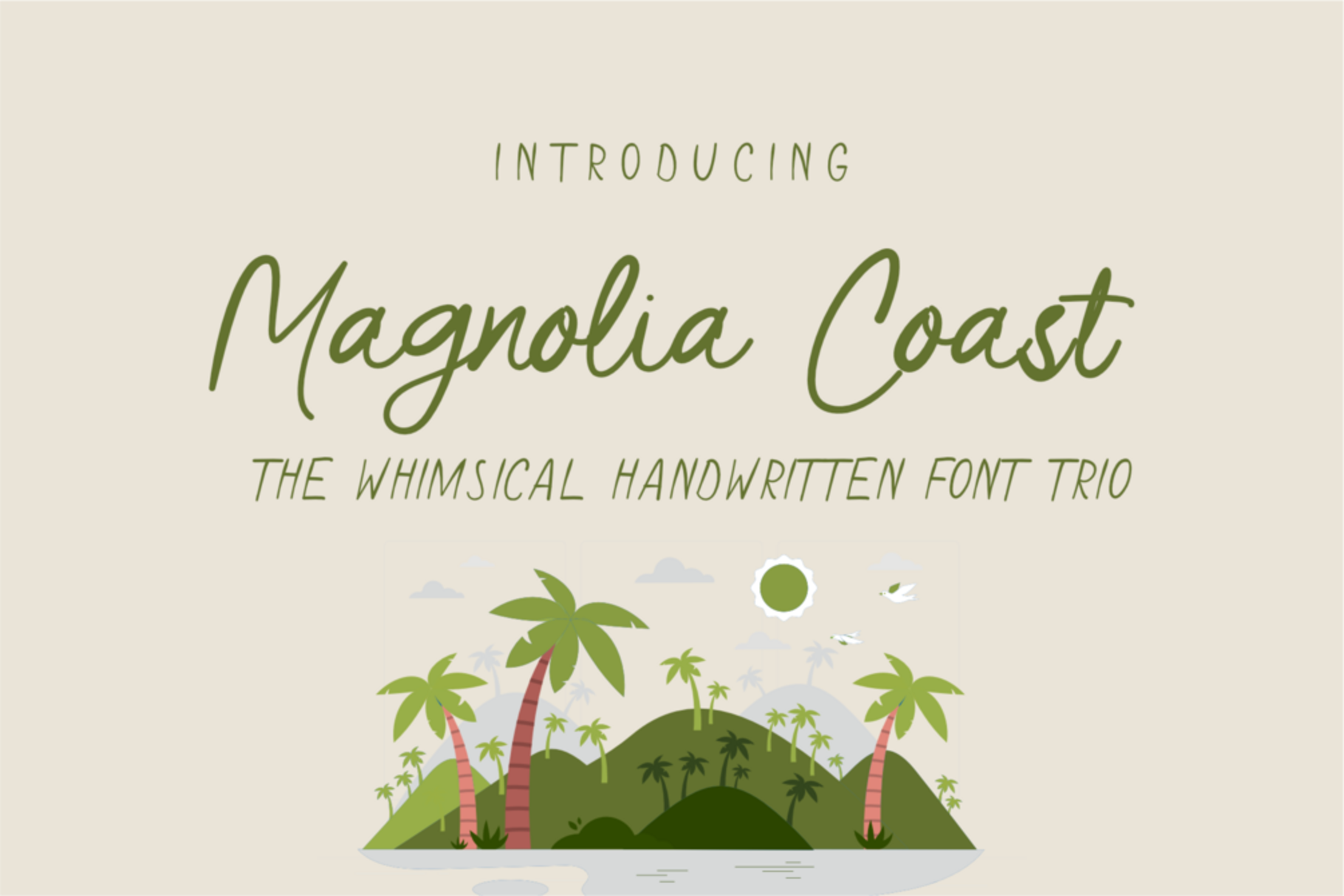
Magnolia Coast Script Font
Magnolia Coast – Elegant Handwritten Script Font
Magnolia Coast is an elegant and graceful script font, inspired by the serene and captivating natural beauty of the coast. With its refined handwriting style and gently flowing curves, this font brings a personal touch that's perfect for a variety of design projects.
Designed to evoke a romantic and natural feel, Magnolia Coast is perfect for:
-Wedding invitations
-Branding and logos
-Inspirational quotes
-Packaging design
-Greeting cards & stationery
-Social media content
-Full alphabet with Uppercase and Lowercase A-Z for script
-Numbers for all fonts
-Punctuation and symbols for all fonts
-Alternates Lowercase script
-Ligature Lowercase script
-Multilingual support all fonts